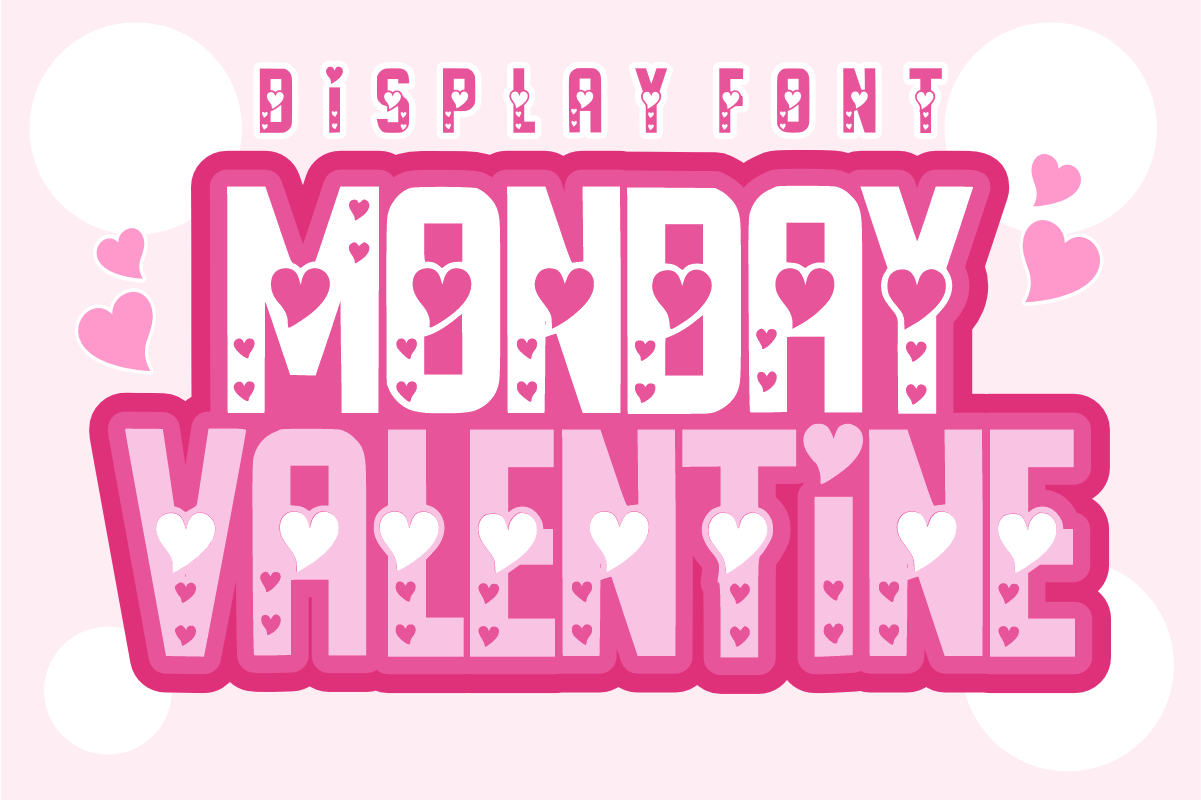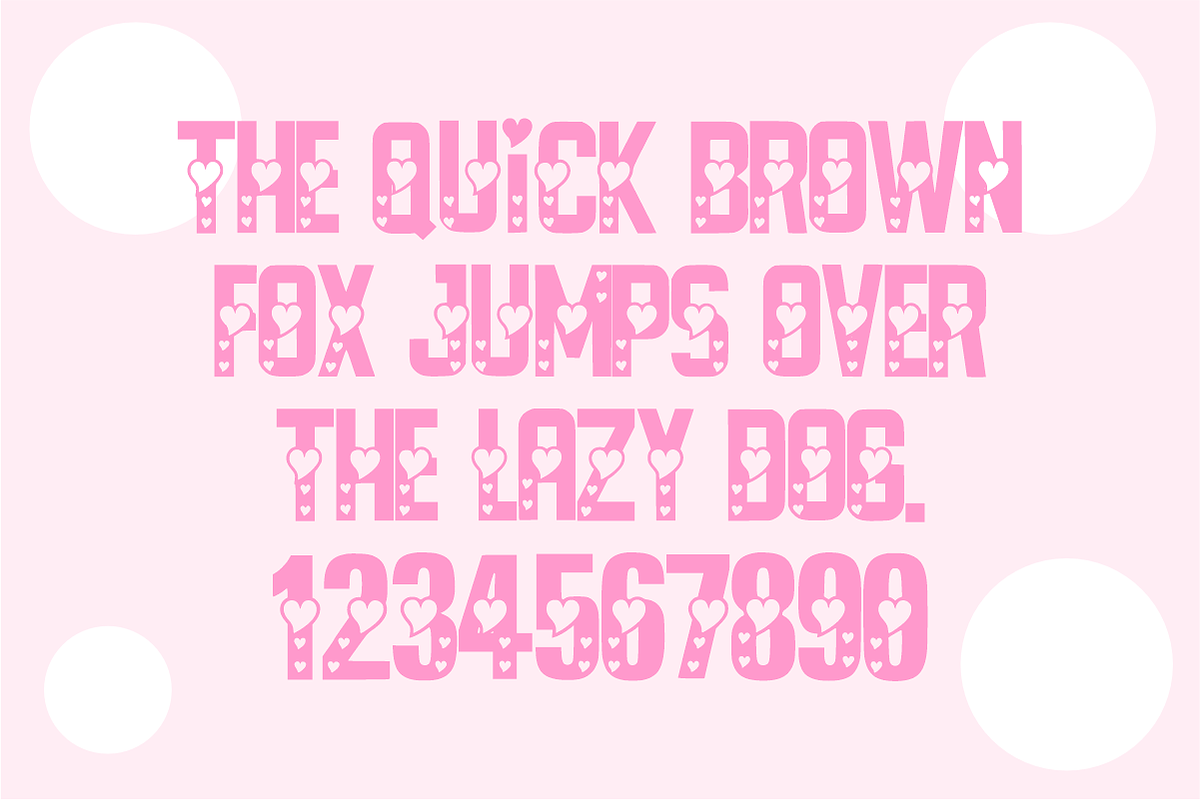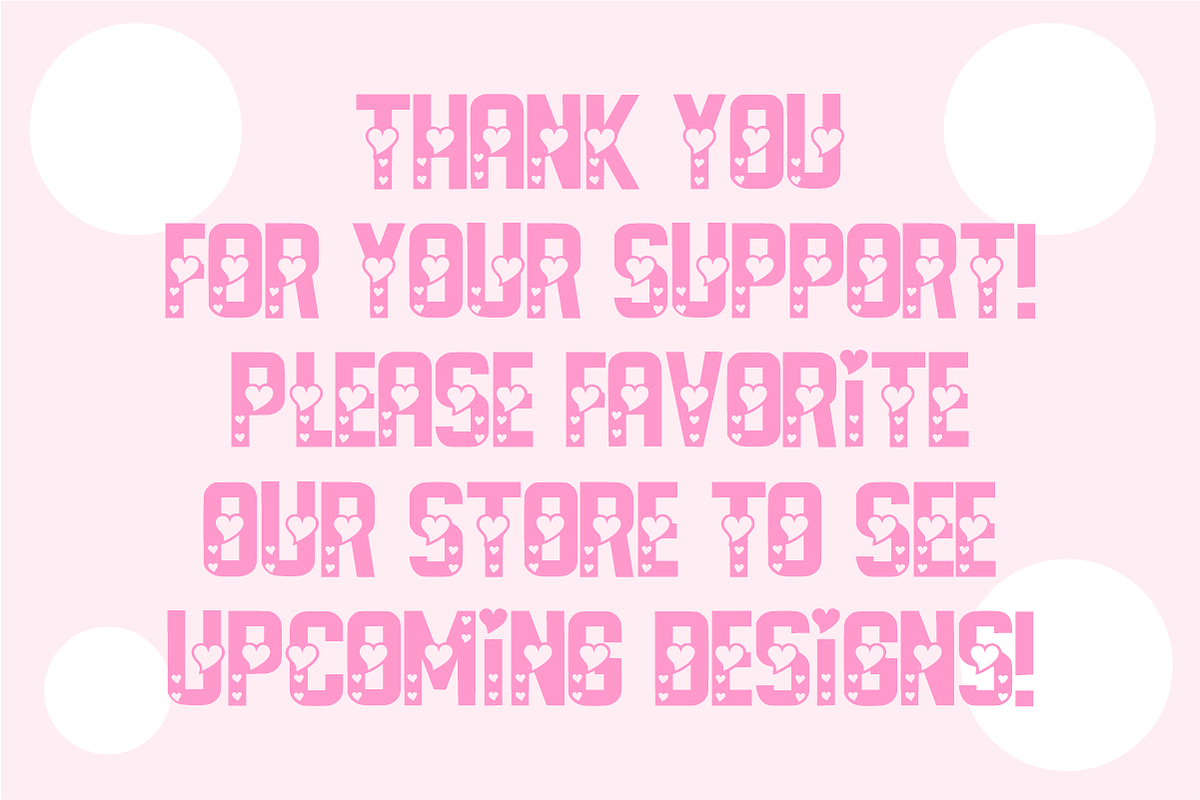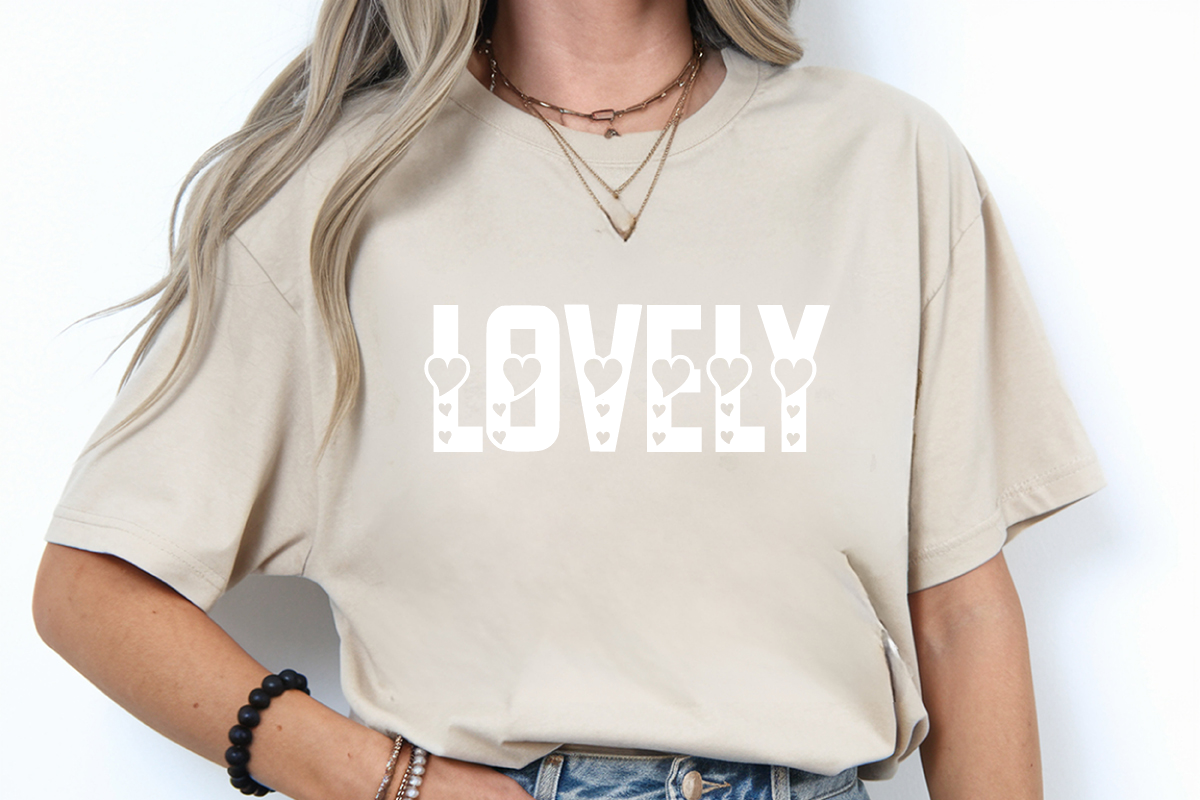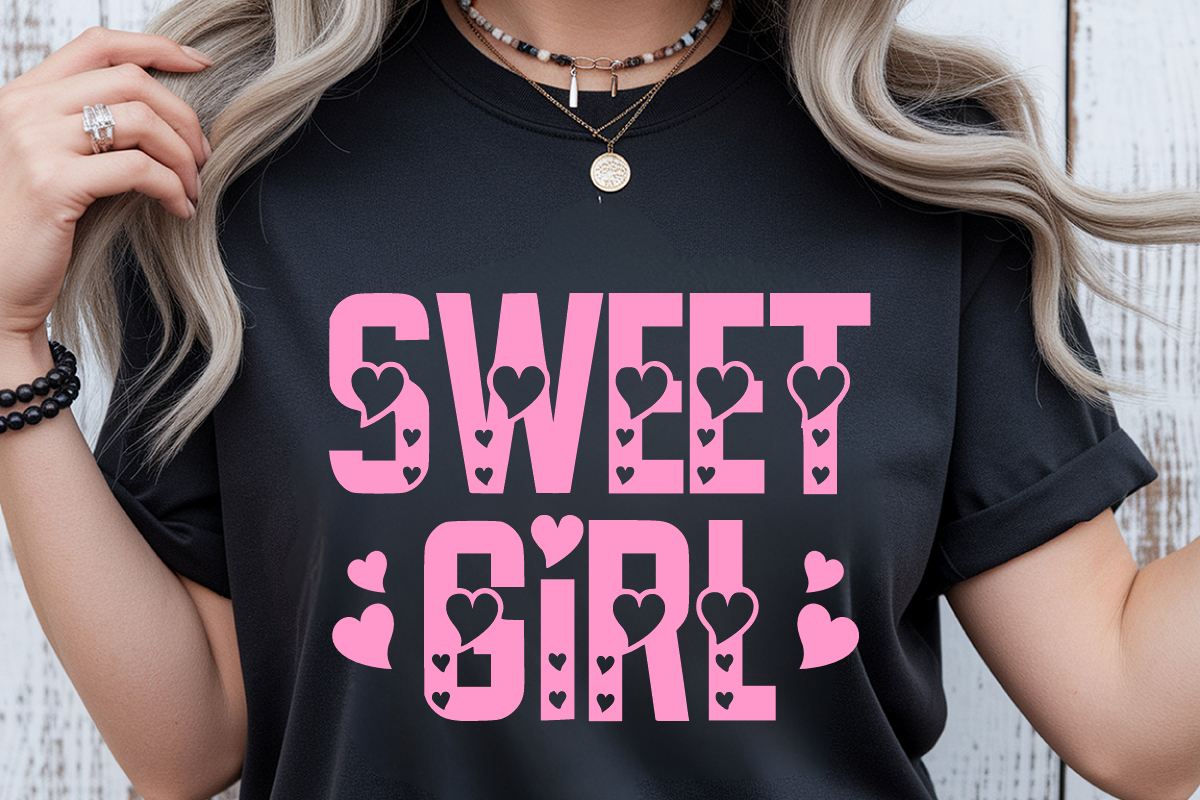
Monday Valentine - Heart Font
Monday Valentine - Heart Valentine Font
Monday Valentine is a sweet, bold display font adorned with cute heart cutouts and playful heart accents built directly into every character. Specially crafted for Valentine’s Day gifts, romantic craft projects, love-themed apparel, and sweet greeting cards, this charming font adds an instant loving touch to any layout. Every character is cleanly vectorized to guarantee high-resolution prints and smooth, effortless cutting on Cricut and Silhouette machines.
Ideal For:
Cricut, Silhouette, and HTV vinyl cutting projects for Valentine's Day t-shirts, couple sweaters, tote bags, and custom mugs
Etsy sellers creating love-themed greeting cards, anniversary prints, romantic stationery, and gift tags
Teachers Pay Teachers (TpT) authors making sweet February classroom bulletin boards, student activity sheets, and Valentine exchange cards
Print-on-Demand (POD) products, romantic apparel collections, cosmetic packaging, and lifestyle merchandise
Canva template creators designing Valentine event flyers, party invitations, and romantic social media graphics
Custom die-cut sticker packs, heart decals, and digital scrapbooking layouts